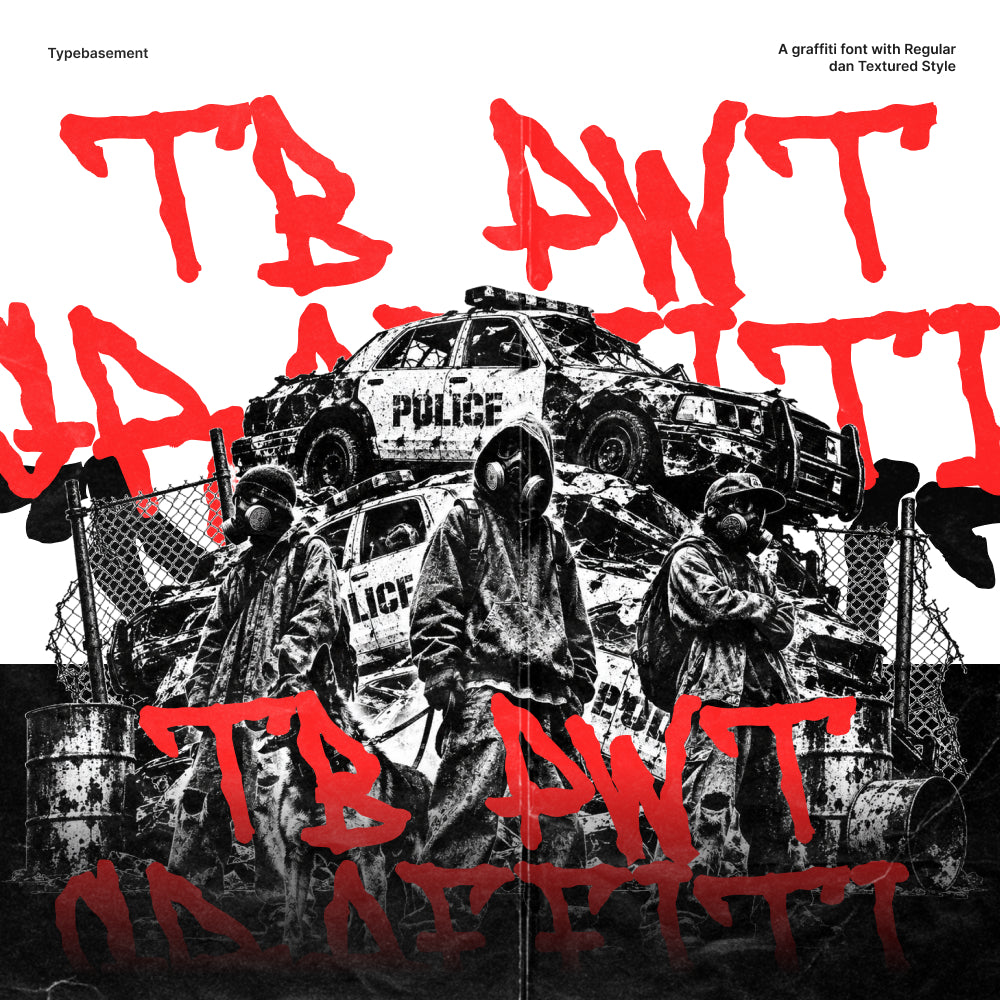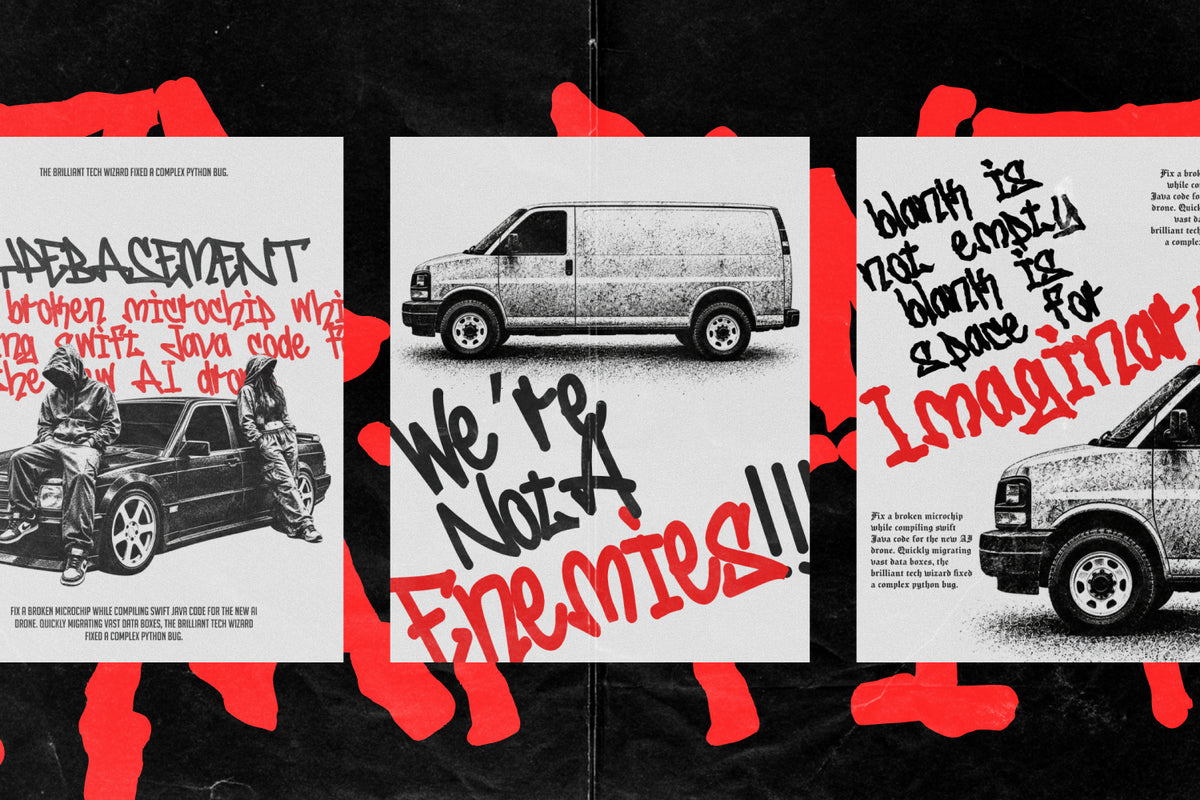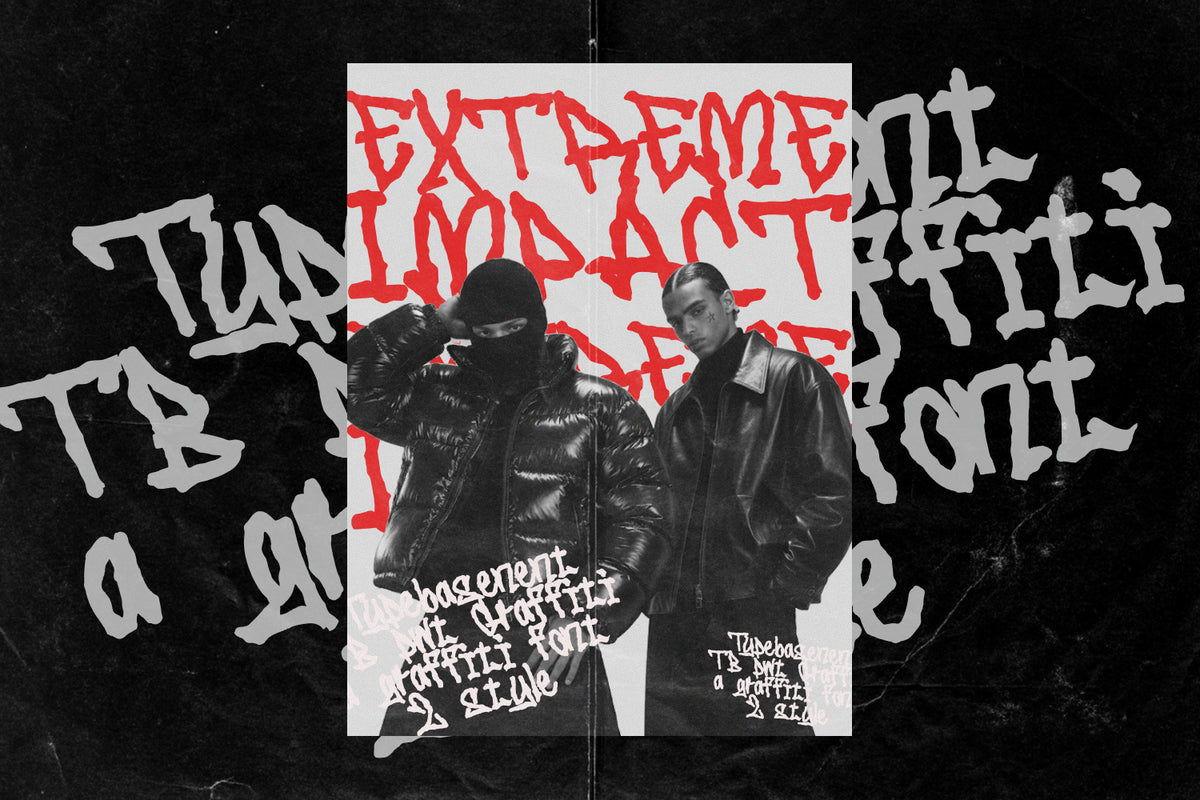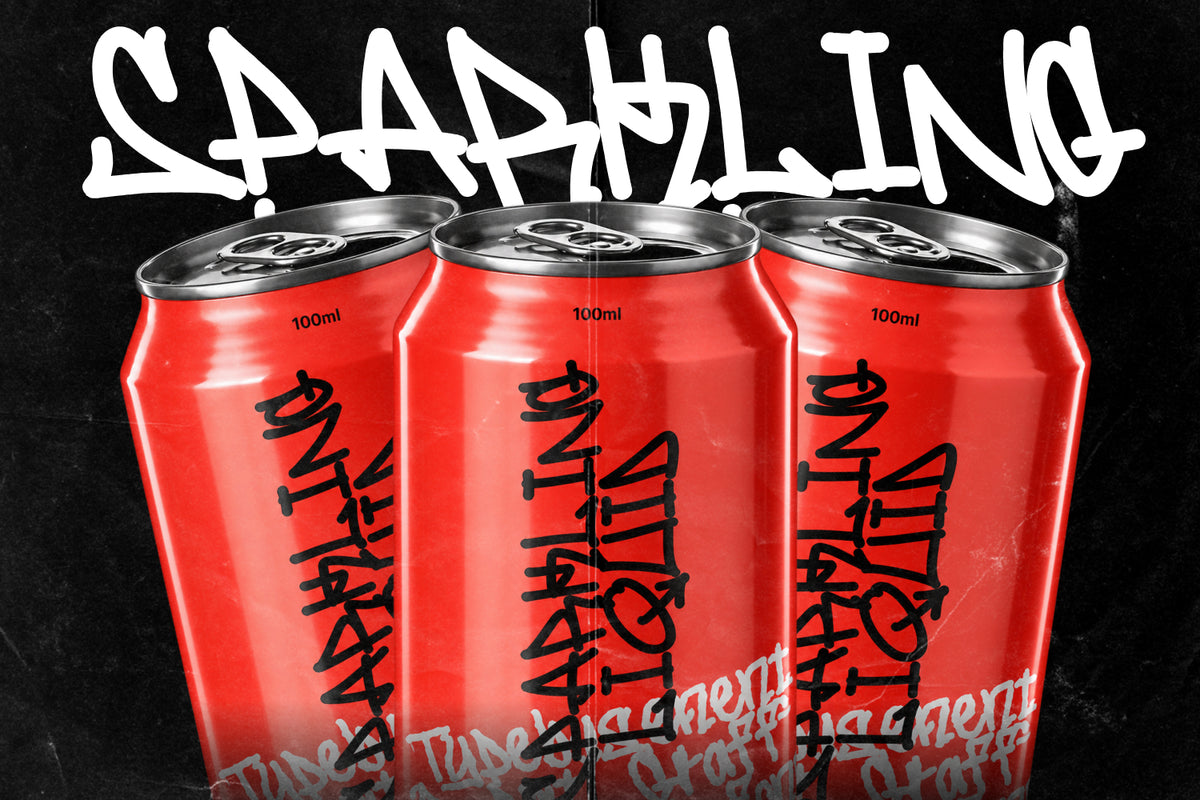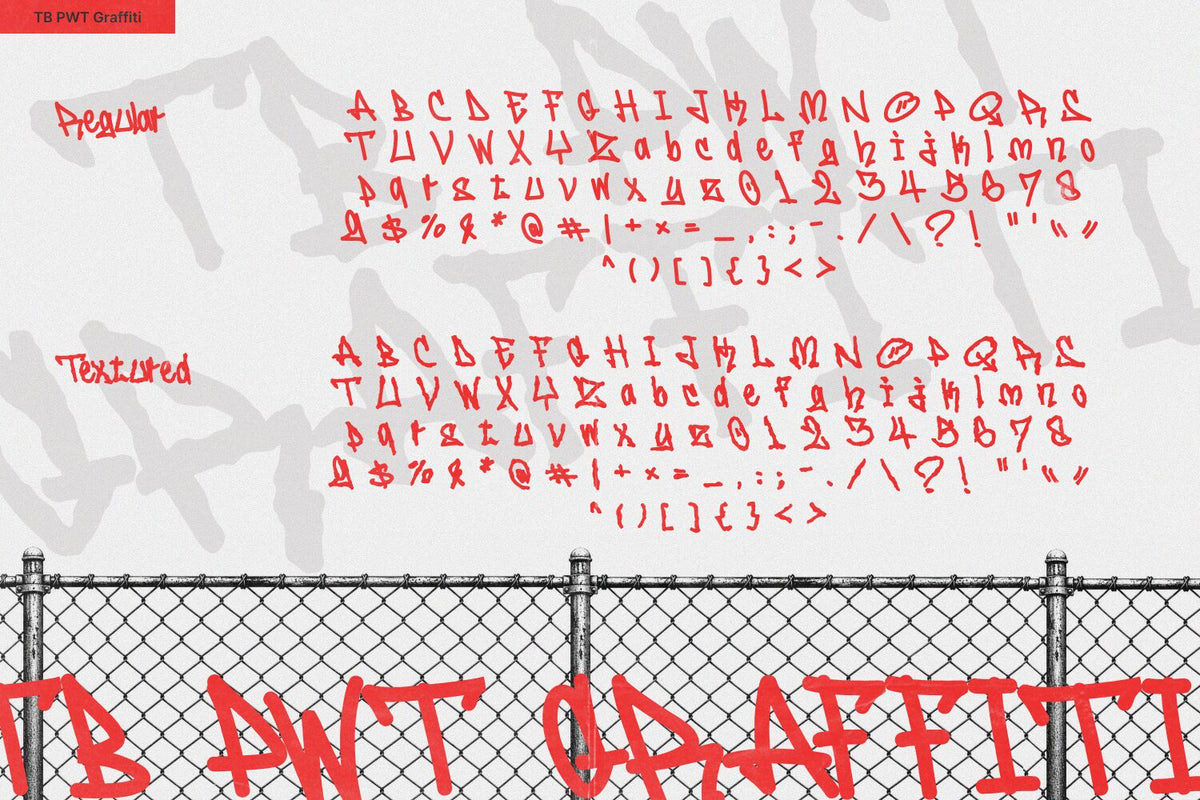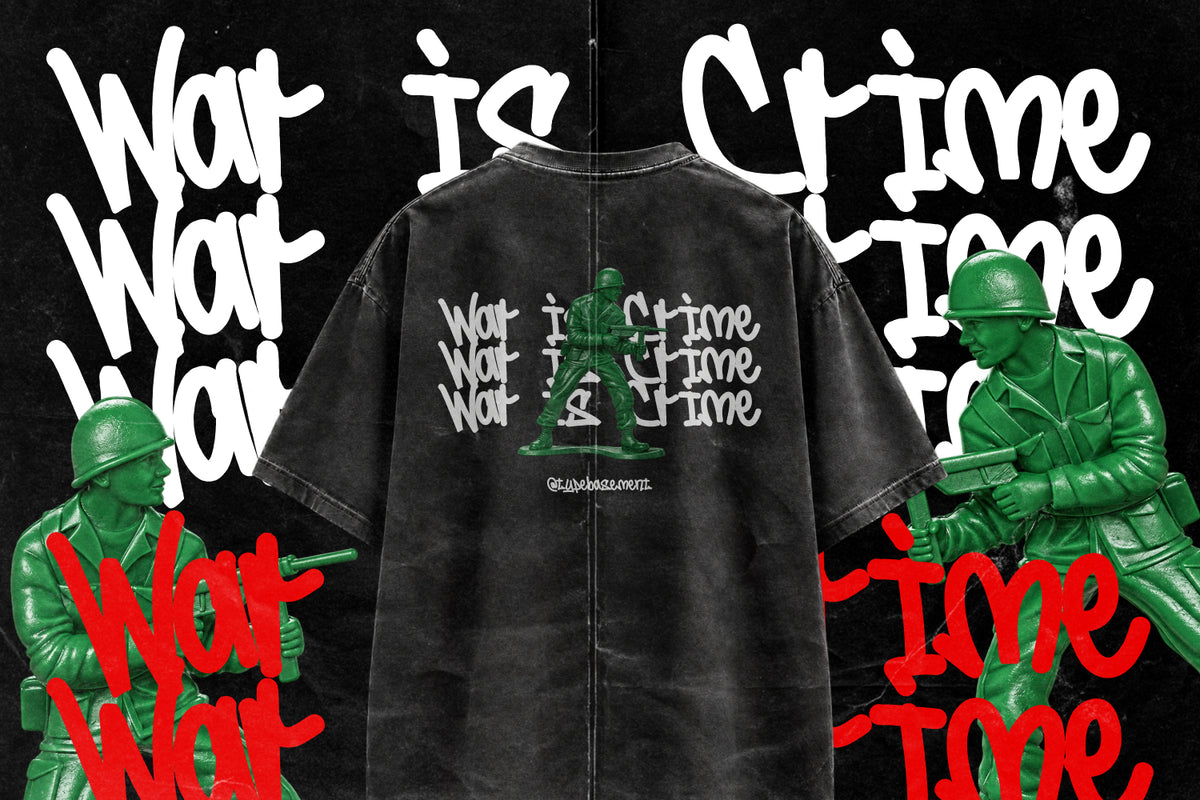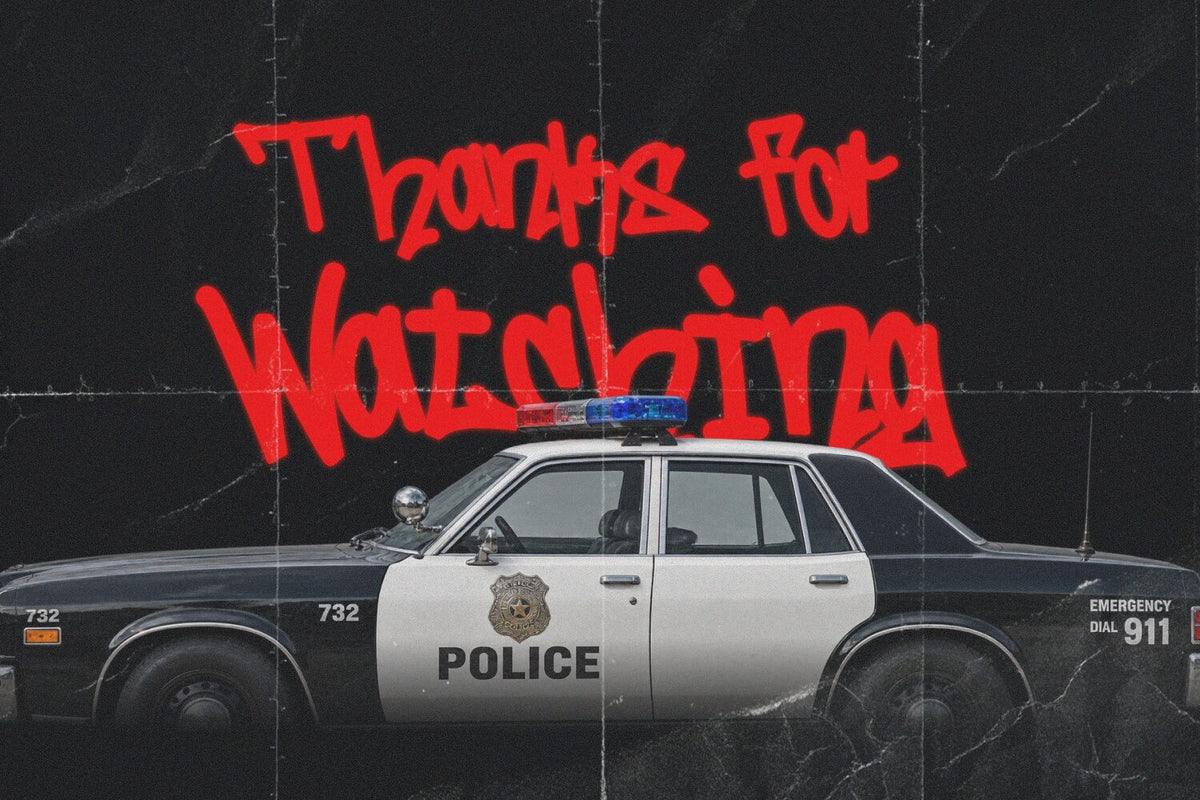
TB PWT Graffiti Display Font
Type Basement
TB PWT is a raw graffiti display font built around the energy of hand-painted street lettering. Rough shapes, irregular strokes, and an unapologetic attitude give the typeface a strong visual presence made for designs that need to feel loud, rebellious, and immediate.
The font comes in two distinct styles — Regular and Textured. Use Regular for a cleaner graffiti look, or switch to Textured when you need extra grit, worn detail, and a more distressed finish.
TB PWT works especially well for posters, streetwear, album covers, merchandise, branding, event graphics, editorial layouts, packaging, social media, and underground-inspired artwork.
Made for designers who want the spontaneity of graffiti lettering with the convenience of a ready-to-use digital typeface.
TB PWT Regular
TB PWT Textured
Uppercase A–Z
Lowercase a–z
Numbers 0–9
Basic punctuation & symbols